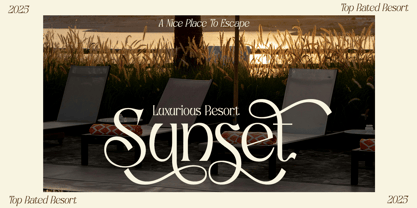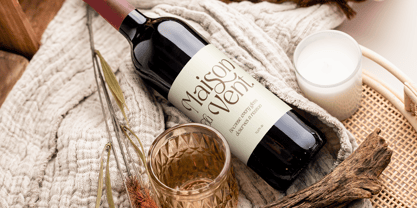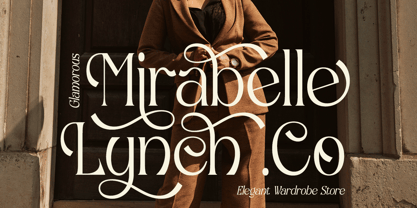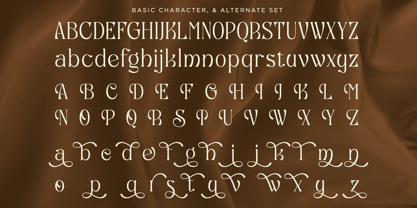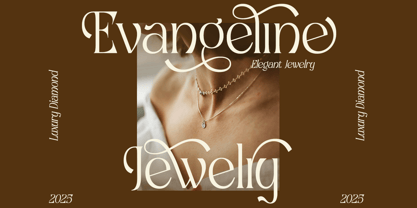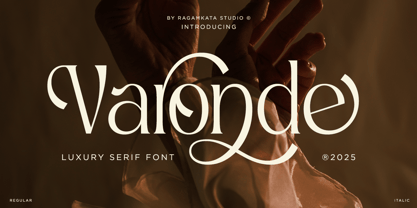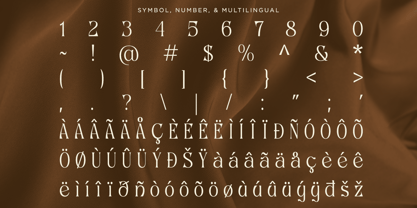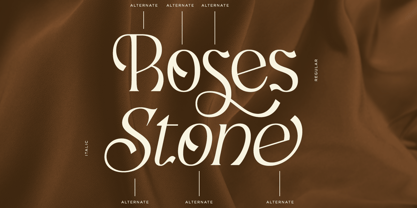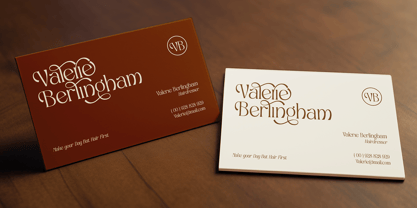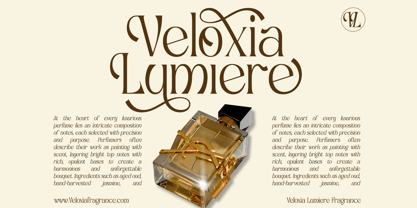
Varonde
von RagamKata
Die Schriftfamilie Varonde wurde von Yogiswhara Dio Prakoso Riadi entworfen und von RagamKata veröffentlicht. Varonde enthält 2 Stile und Familienpaketoptionen. Mehr über diese Familie
Varonde is a luxury serif typeface featuring distinctive curves that bring an elegant, refined touch to any project. Packed with numerous stylistic alternates, it’s perfect for creating striking, memorable designs such as quotes, invitations, wordmark logos, branding, and more. It also includes star elements to make your visuals shine even brighter. Whats Included : - Varonde Regular - Varonde Italic - Stylish Alternates Set - Number, and Symbol - Multilingual Support Thank You !
Designer: Yogiswhara Dio Prakoso Riadi
Foundry: RagamKata